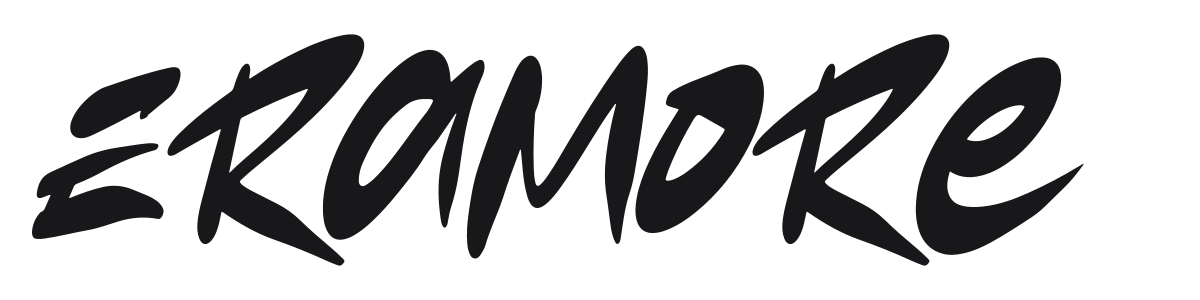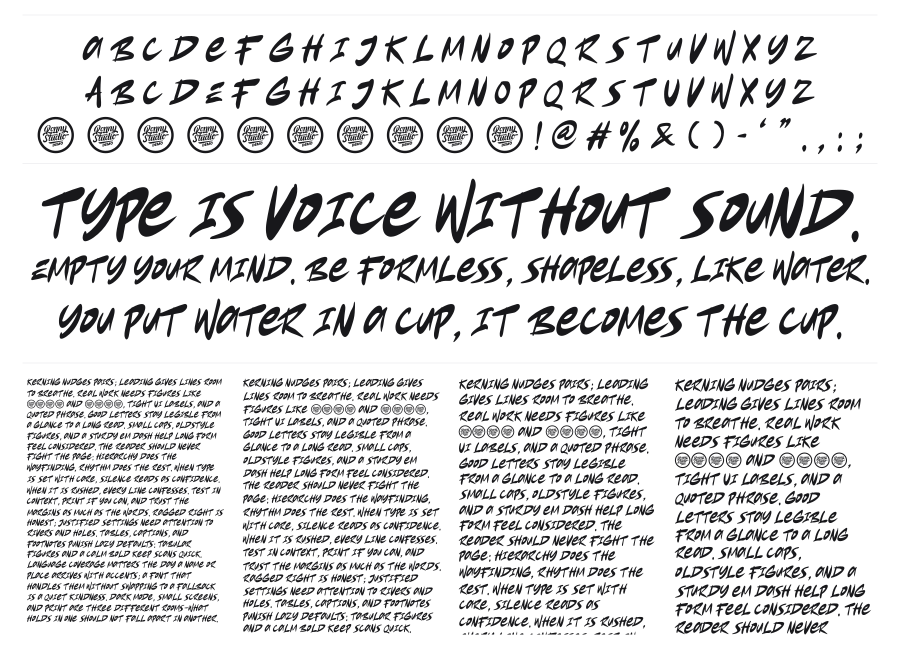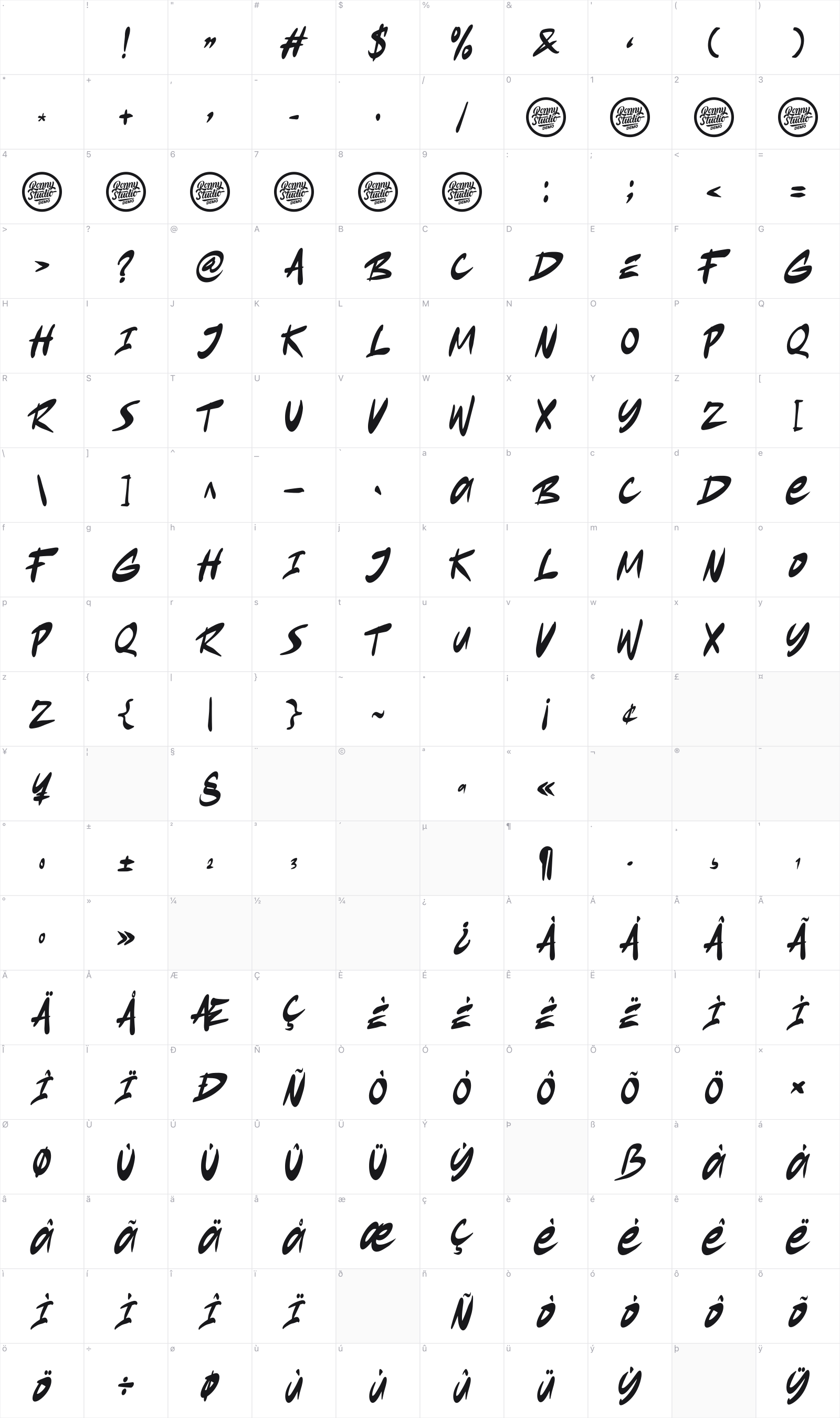
Eramore
Eramore is a bold brush script with steep italics, dramatic stroke contrast, and a raw, street-level energy. The jagged ink edges and irregular baseline give it the feel of something painted fast and on purpose. Strong choice for posters, apparel, and any context where impact matters more than refinement.